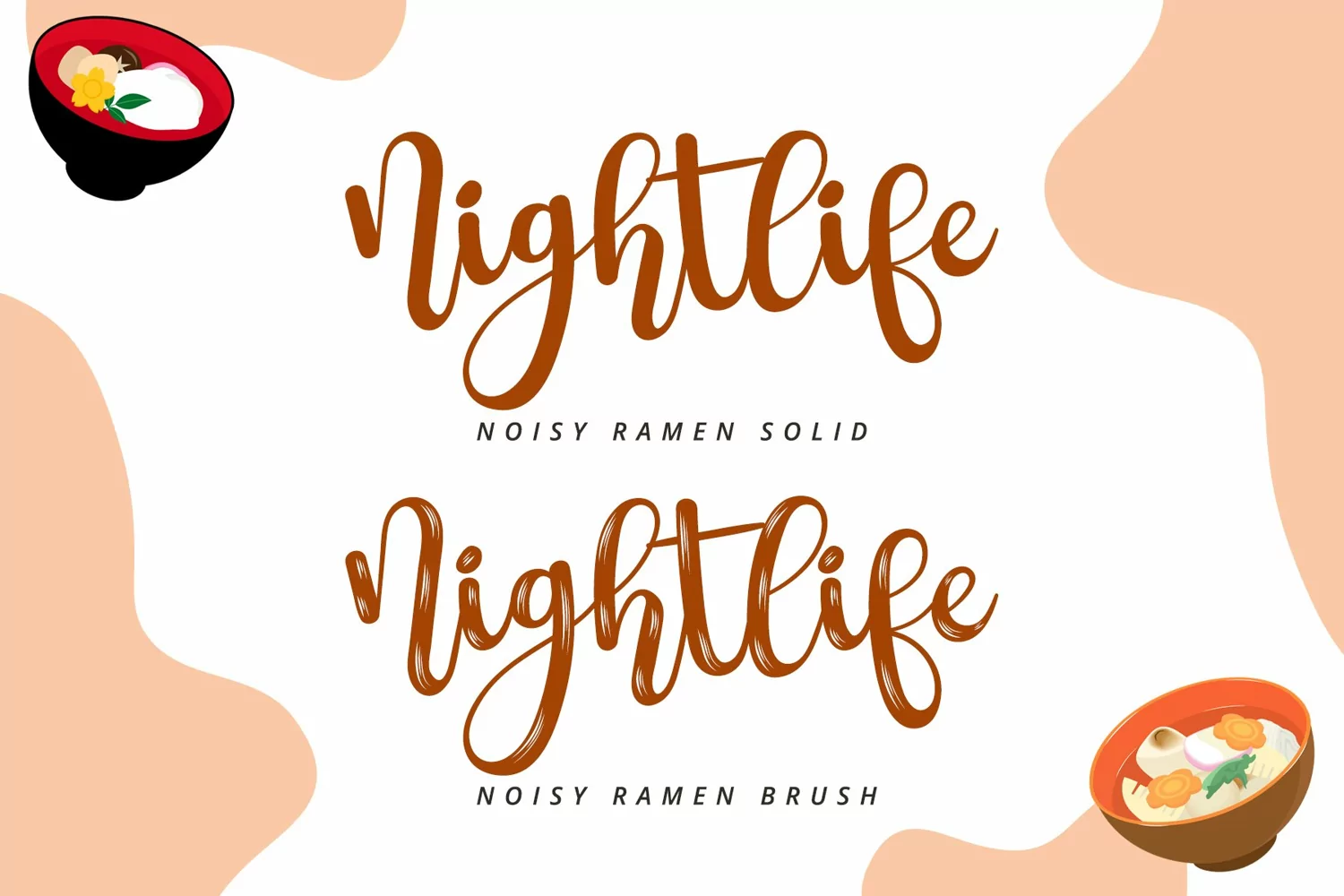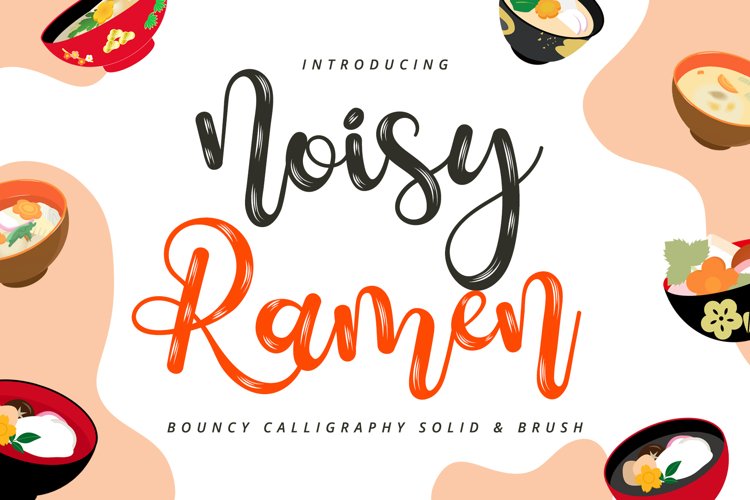
Noisy Ramen is handwritten bouncy script. It is sweet, playful, and authentic. This font is so suitable for playful project, from crafty design, stickers, t-shirt mock-up, social media, and others.
Noisy Ramen has 2 styles, solid and brush.